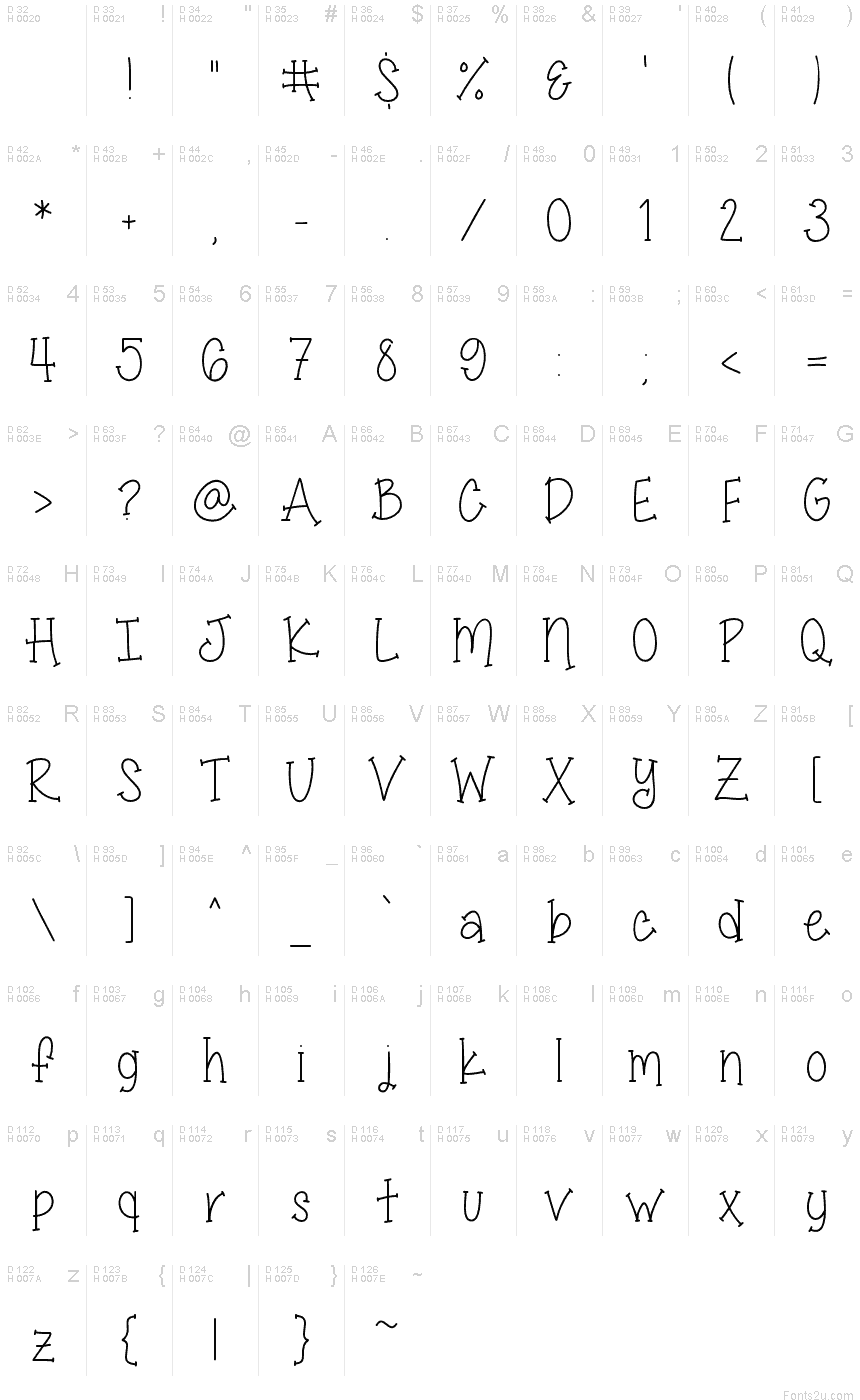
Miss Smarty Pants Skinny
Miss Smarty Pants Skinny by Vanessa Bays is a free comic display font with tall, wiry letters, wavering strokes, and exaggerated changes in height. The narrow shapes look loose and cheerfully improvised.
Children's book covers and classroom posters gain the bounce of a quick cartoon sketch from this lettering. It also suits quirky cafe packaging and lighthearted event graphics, where its slim profile can mingle with drawings and decorative motifs. Across these uses, the connecting thread is an illustrated quality that lets words become part of the artwork.